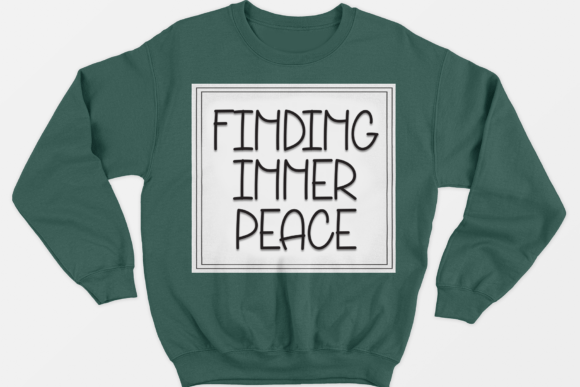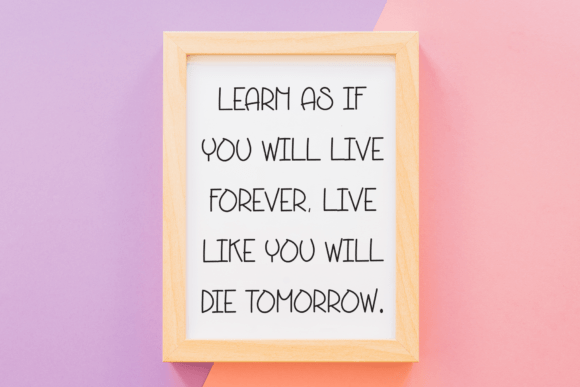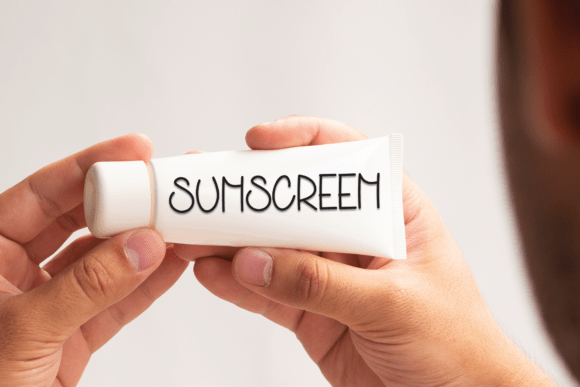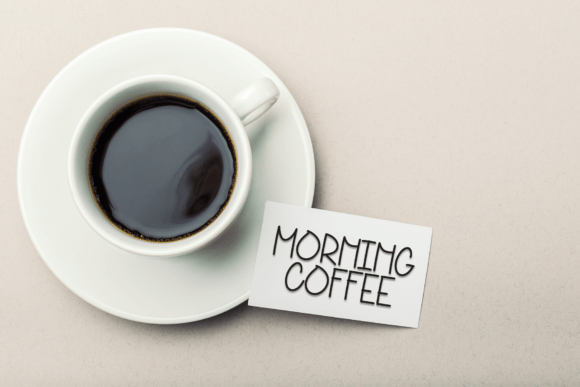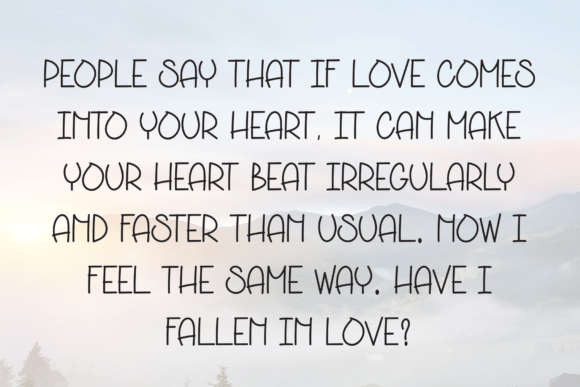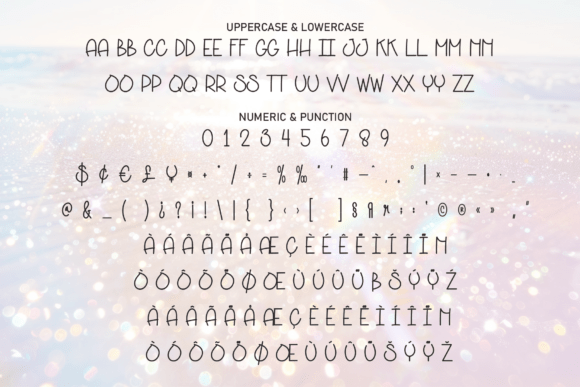
Introduction to Magic Summer Font
Summer is in the air, and with it comes the urge to create something fresh and fun. Whether you’re planning a beach party, a summer concert, or just want to give your brand a refreshing makeover, the right font can make all the difference. That’s where the Magic Summer Font comes in – a delightful display font that embodies the carefree spirit of the season.
As a valuable design resource, the Magic Summer Font is perfect for designers looking to add a touch of whimsy to their creative projects. With its clean lines, easygoing vibe, and transparent background, this high-quality font is ideal for summer posters, event flyers, and playful branding. And the best part? It’s available for free download, making it a must-have for designers of all levels.
Key Features of Magic Summer Font
- Unique, hand-drawn style with a transparent background, ideal for digital art and graphic design.
- Includes 6 different font styles, each with its own distinct character and flair.
- Designed specifically for use in digital projects, including web design, social media graphics, and mobile app design.
Honest Review: Magic Summer Font
I recently stumbled upon the Magic Summer Font while searching for design resources to enhance my creative project. I must say, it’s been a great addition to my design arsenal.
What works well with the Magic Summer Font is its high quality and versatility. It comes in a variety of styles, making it perfect for various design applications. I particularly love the transparent background feature, which allows for seamless integration with other design elements.
- ✨ Versatile and comes in various styles
- ✨ Transparent background feature for easy integration
One thing that could be improved is the limited character set. While the font is great for headings and titles, it may not be suitable for large blocks of text.
Overall, I’m quite impressed with the Magic Summer Font. It’s a great addition to any designer’s toolkit, and I’d definitely recommend it for any creative project.
Tips for Getting the Most Out of Magic Summer Font
For a high-quality design, use the Magic Summer Font with a transparent background to create a visually appealing and modern look. You can also experiment with different font sizes and colors to get the most out of this free download.
The Magic Summer Font is ideal for creative projects such as social media graphics, blog posts, and advertising materials. Its high-quality design and transparent background make it perfect for creating eye-catching and professional-looking designs.